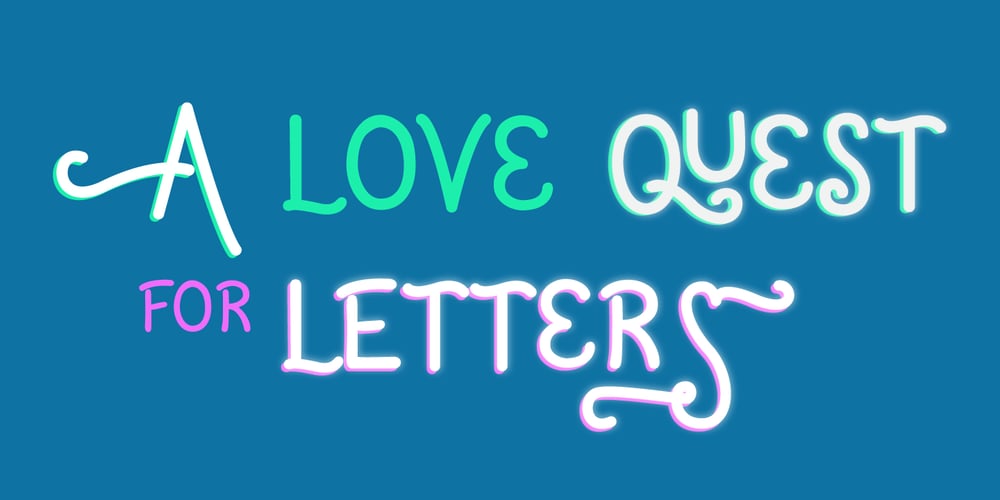
Xanakee
Xanakee font
Xanakee Font Family was designed by Chank Diesel, Nicollazzi Xiong and published by Chank. Xanakee contains 1 styles and family package options. Xanakee is a curvacious bubbly fun font, with equal parts pleasant approachableness and a swaggerish strut. Xanakee features large, leisurely curves controlled by the consistency of the monoline stroke. All with a friendly, human voice and confident gait. OpenType versions have a few special features, like some smallcaps and some fanciful swash figures. Purchase it from MyFonts and you’ll get TrueType format in your download as well. Also available as web type, too, of course.